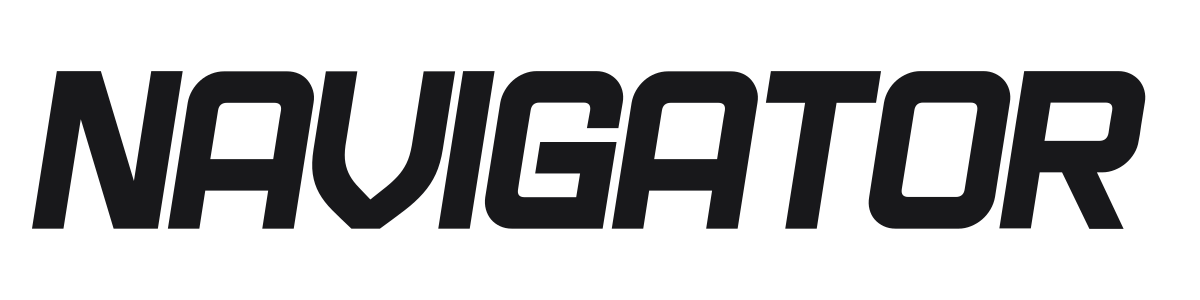
Navigator
Navigator is a bold condensed italic sans with a hard-driving, mechanical edge. The tight geometric construction, flat terminals, and sharp angles give it a retro-sport energy reminiscent of 1970s racing typography. Built for headlines, posters, and anywhere a design needs momentum.